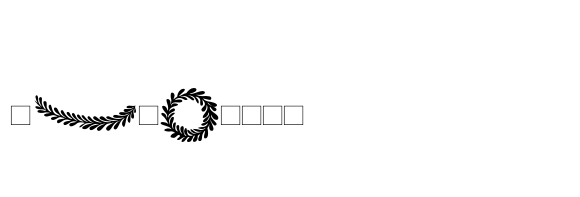
Bolívar
by César Puertas
The Bolívar Font Family was designed by Carlos Fabián Camargo Guerrero, César Puertas and published by César Puertas. Bolívar contains 2 styles.
Bolívar is a contemporary display typeface inspired in the handwriting of one of the most prominent personalities of the Latin American 19th century: Simón Bolívar, “the liberator". The typeface intends to capture the passion of handwritten letterforms and to translate it into type. Among the characteristics that best contribute to its strong personality, are the impressive length of ascenders and descenders as well as the more than 45 degrees of slant. Bolívar mimics certain aspects of handwriting such as the slightly different baseline for each letter and ink clogs in the counters of some letters. Use Bolívar whenever you need to add passion to a piece of text, from logos or single words to sentences and captions.
Designers: Carlos Fabián Camargo Guerrero, César Puertas
Publisher: César Puertas
Foundry: César Puertas
Design Owner: César Puertas